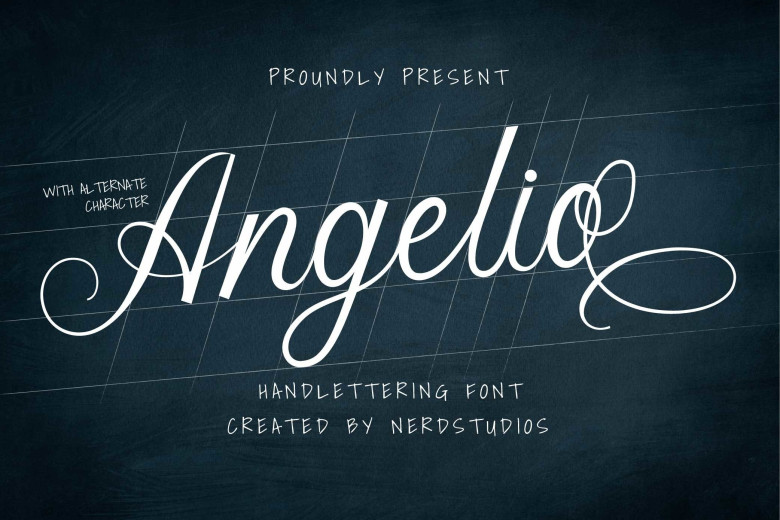
Angelio Font
Angelio is a dazzling Handwritten Script font. This font is decently crafted with a large attention to detail. Whatever the subject, this font will be a valuable asset to your font library, as it has the capacity to improve any creation.
Angelio Handwritten Script Font